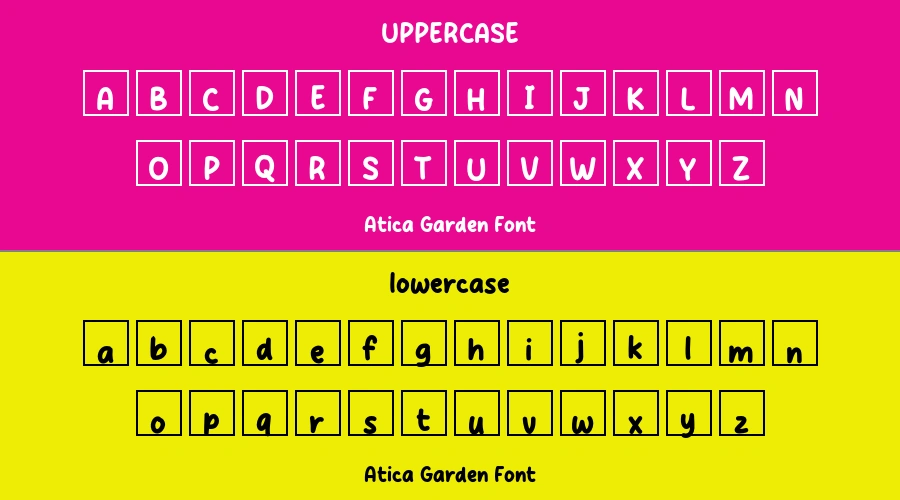
About Atica Garden Font
Designed with precision, Atica Garden Font merges strong contrast with durability in every character. This versatility makes it particularly effective for medical texts, where expressiveness and professional authority directly impact communication quality. Each letterform demonstrates meticulous craftsmanship.
Technical excellence shines through elements like organic curves and case-sensitive forms, enhancing typographic versatility. In editorial spreads settings, Atica Garden Font proves its worth through superior output consistency. The thoughtful execution of x-height proportion and artistic influences ensures professional results.
Atica Garden Font |